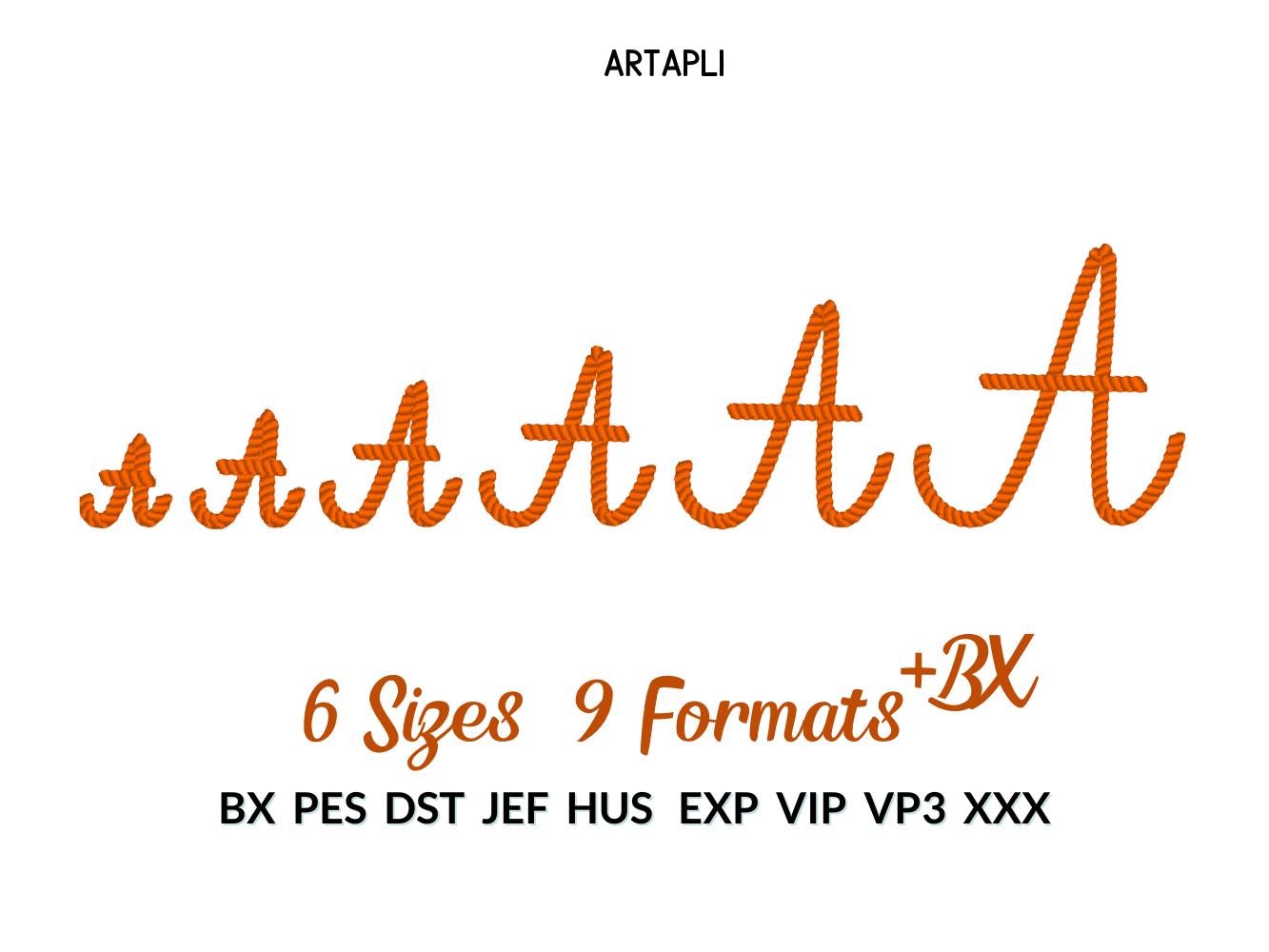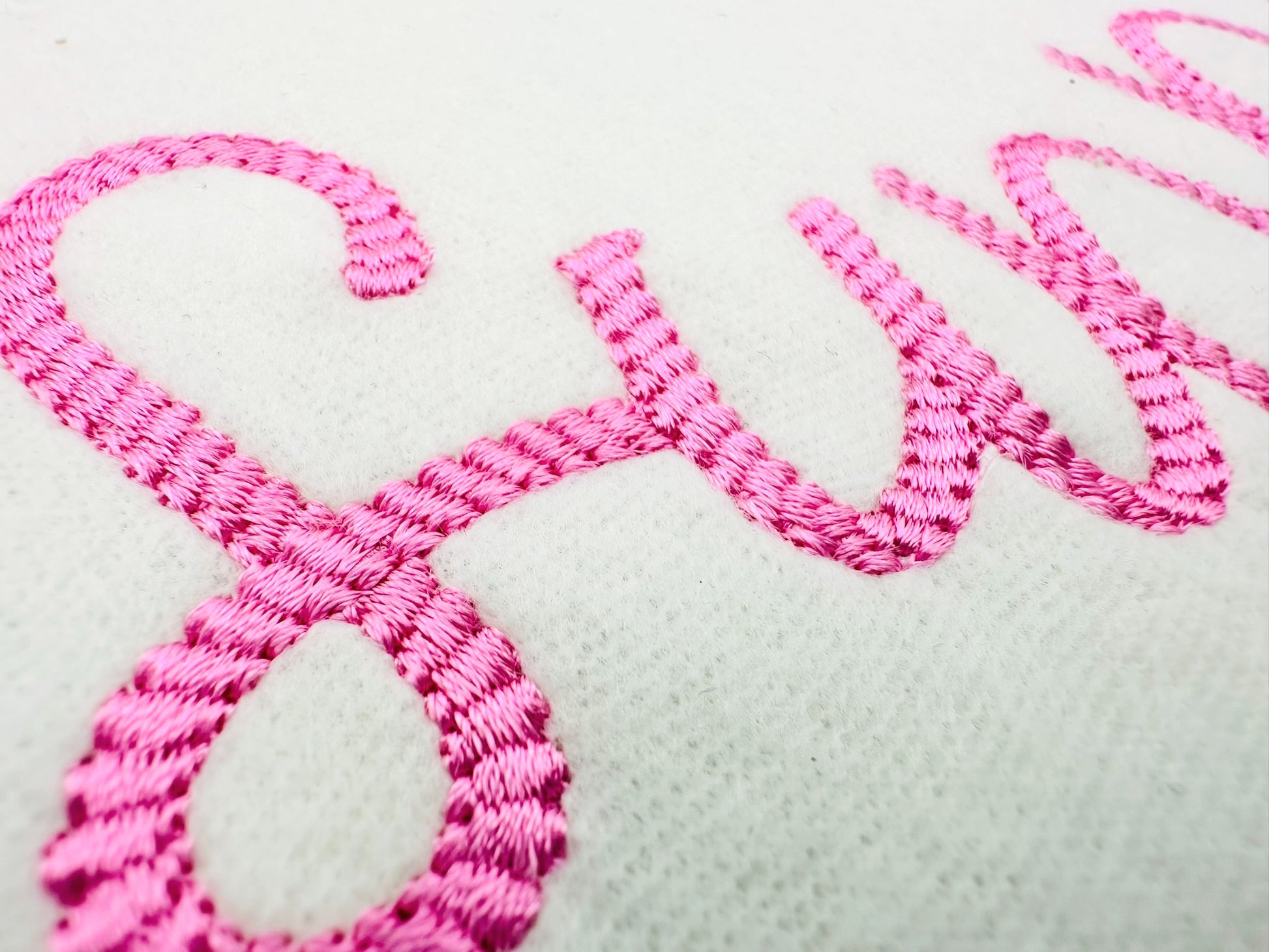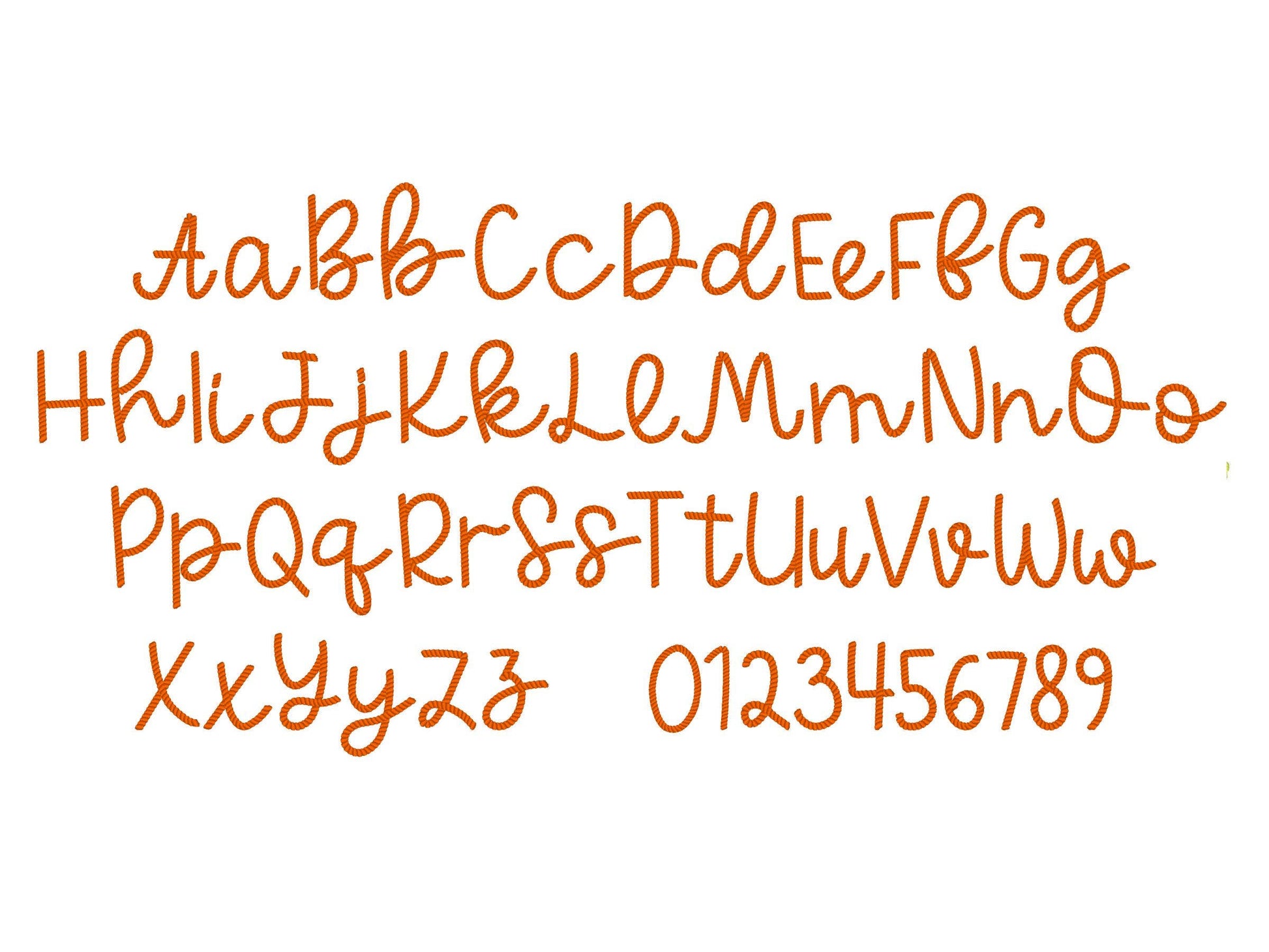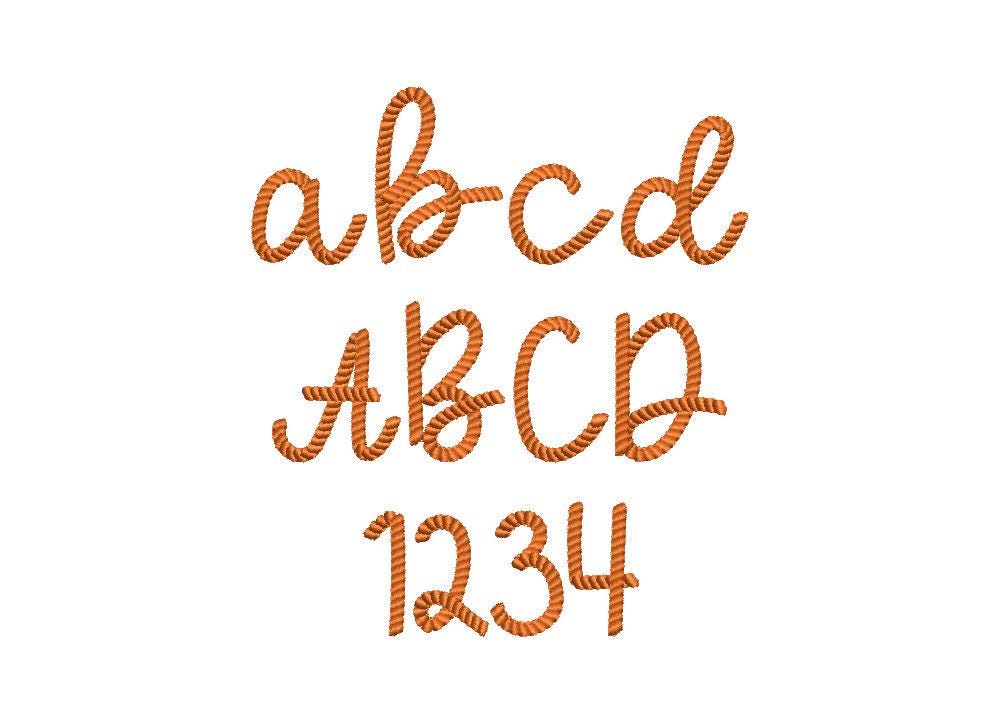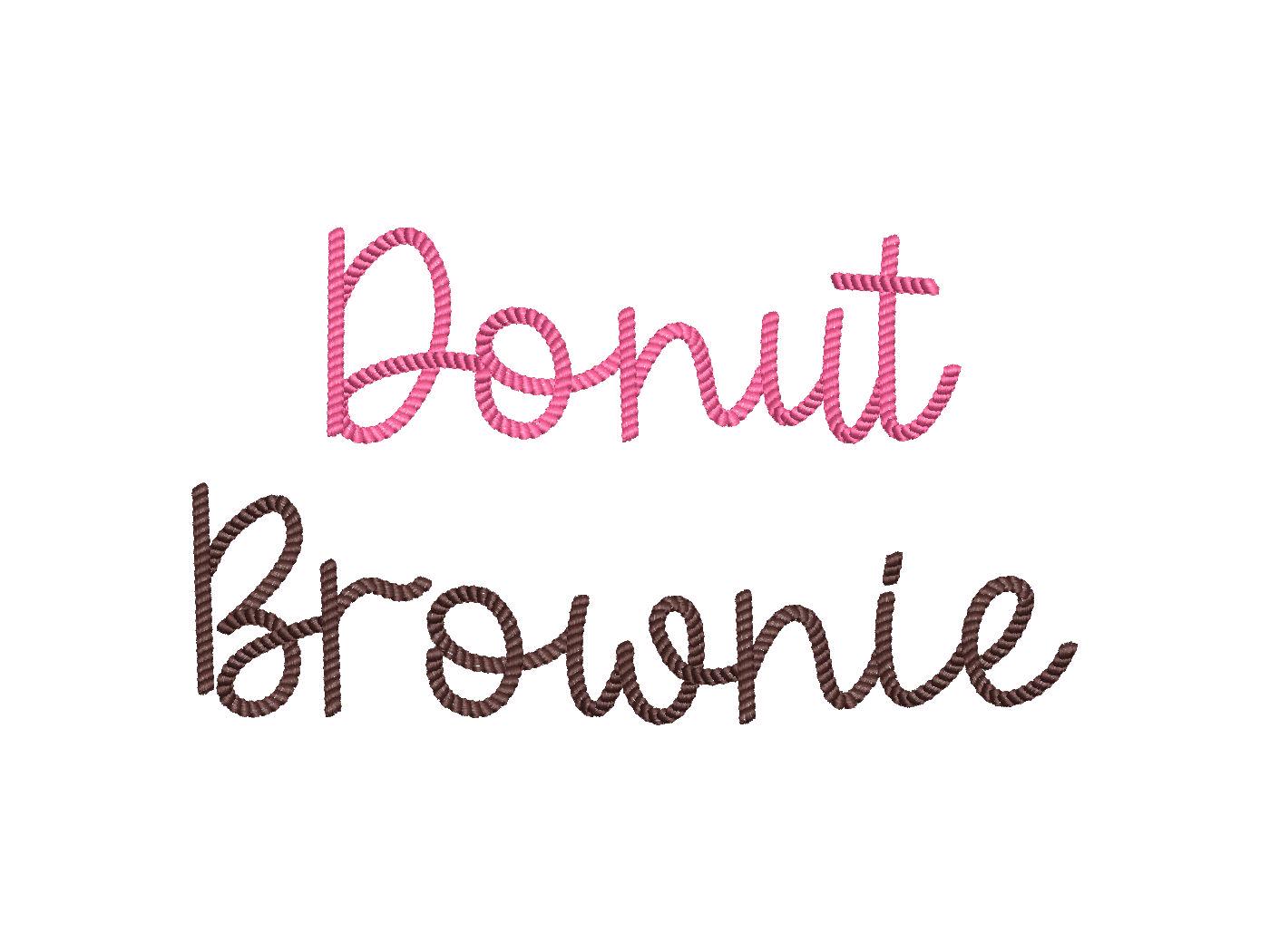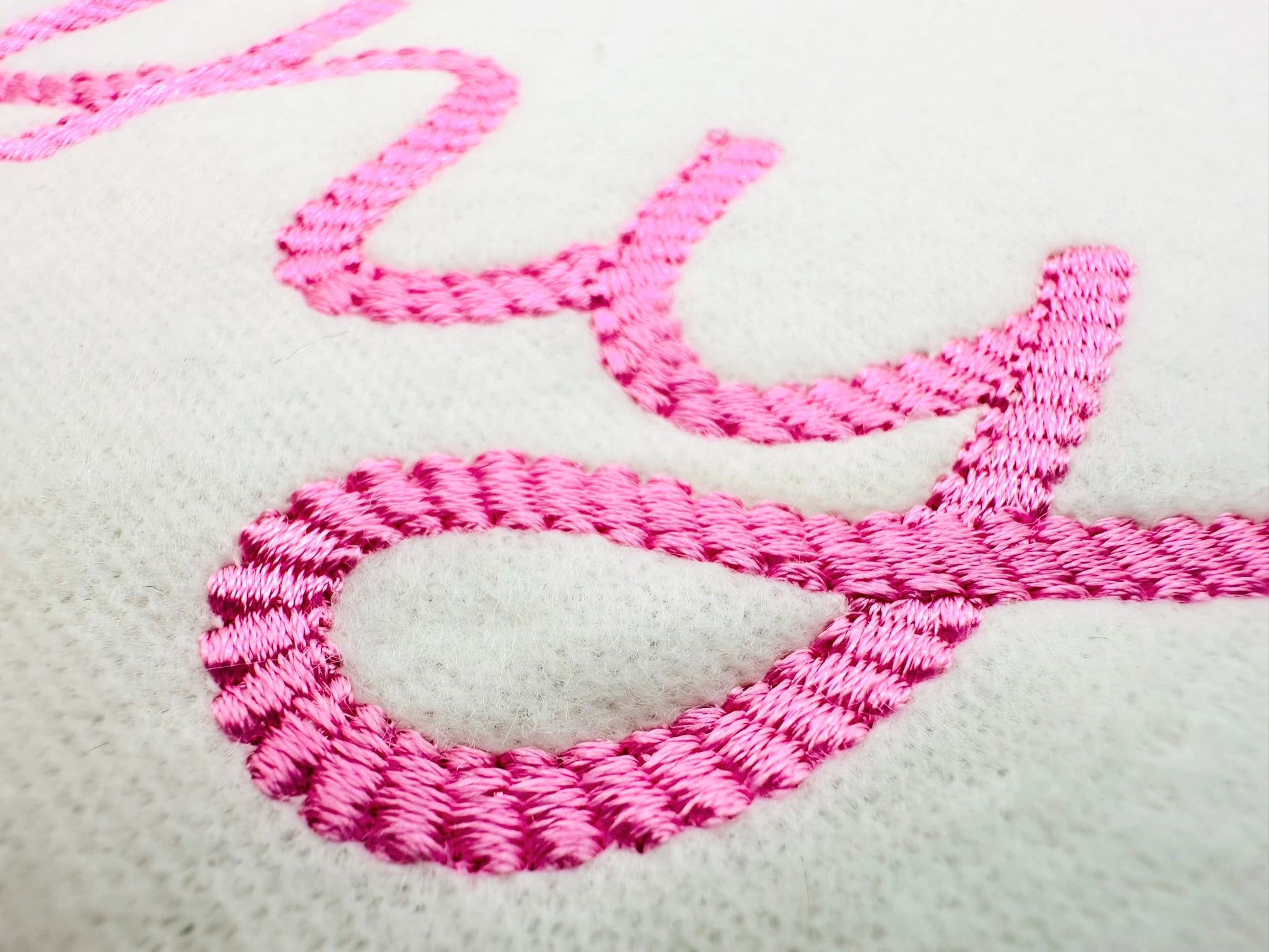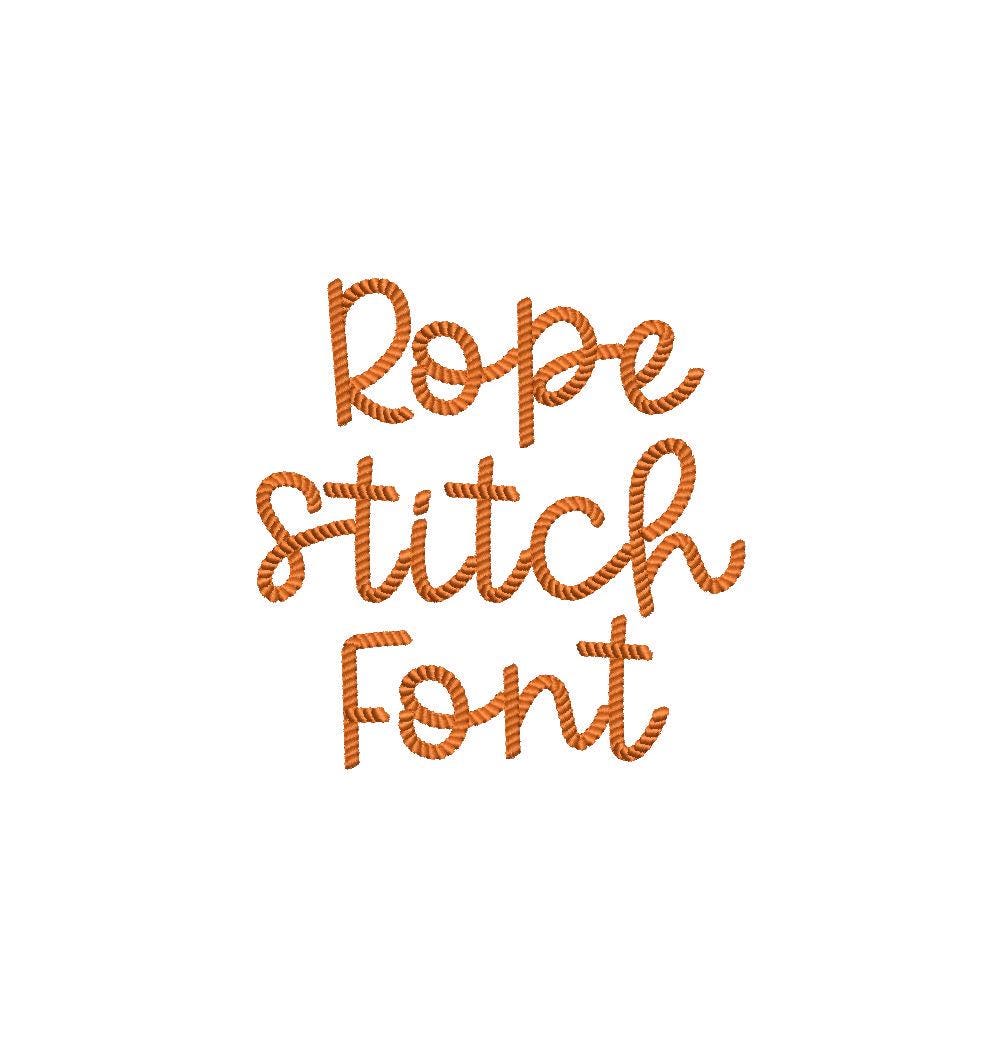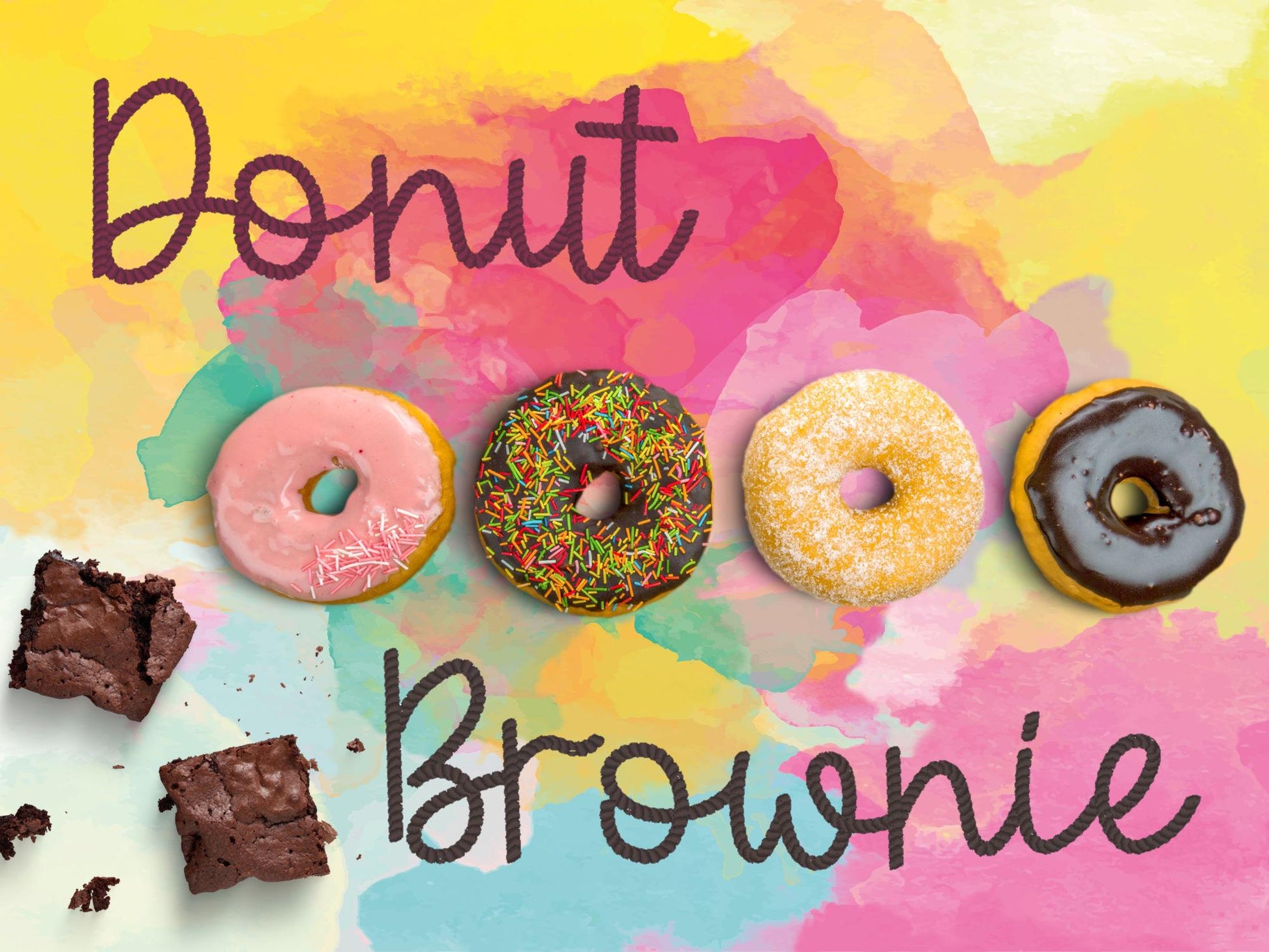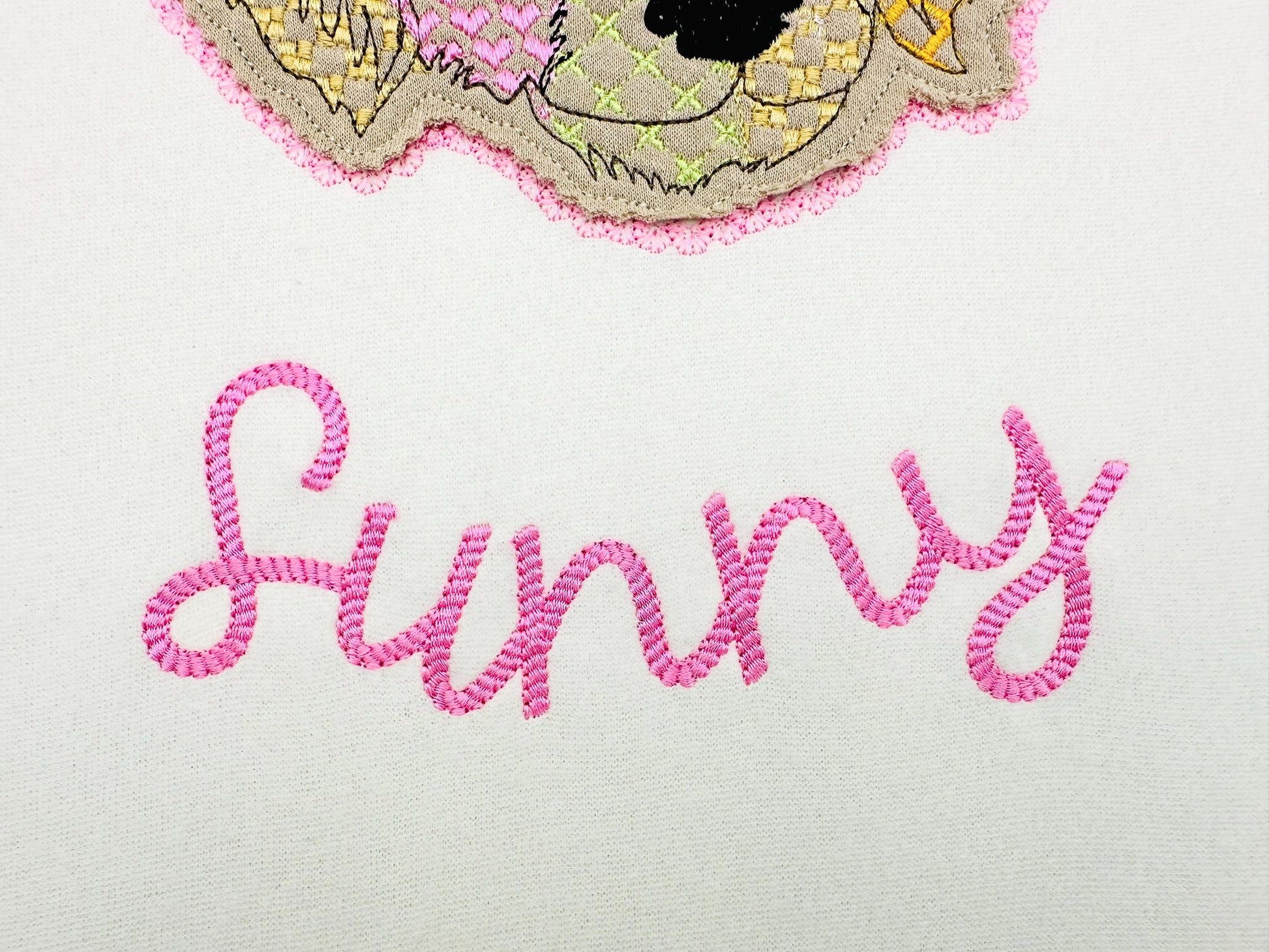
Can't believe how cute this stitched out!! Perfect!
Love this font, easy to set up and stitched perfectly.
This stitched out so great!
Love this rope font on my personalized bags!
Such a cute font ! Very nicely digitized!
Amazing quality, I was scared because I altered the size but it still stitched out wonderfully!
Stitched out great on fabric!
It stitched up very sweetly. Using this don’t for a first birthday celebration banner. Blessings!
Lovely design. Stitched out beautifully.
Perfect for embroidered bandanas at my wedding welcome dinner
Absolutely perfect for the project I was working on
Was exactly what I was looking for. Was easy to use on embrilliance and stitched out great
So cute and just right for what I needed! The stitching is a bit dense in some areas so when I stabilized better (my fault!!!) it stitched out perfect.
This stitched out wonderfully! Beautiful font.